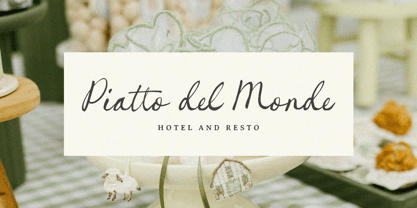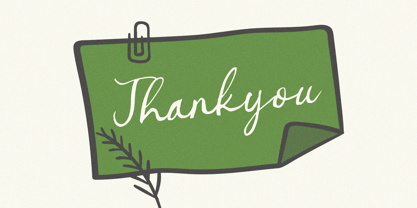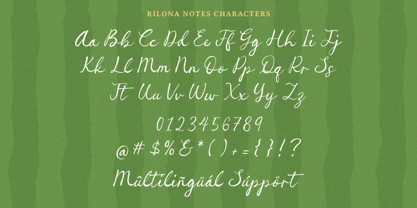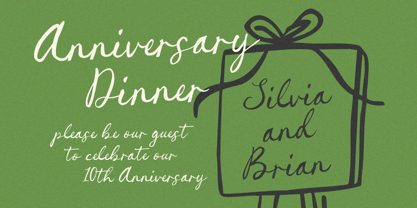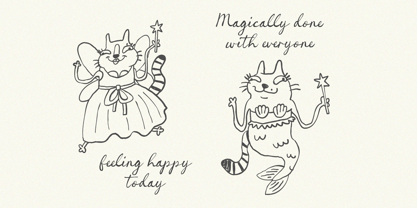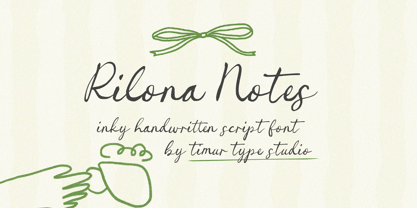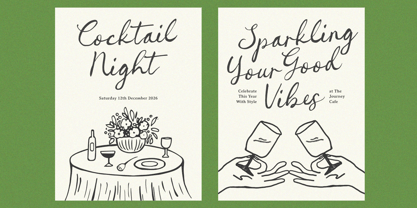
Rilona Notes
by Timurtype
The Rilona Notes Font Family was designed by Ibnu Nur Rahman and published by Timurtype. Rilona Notes contains 1 styles. More about this family
Introduced by Timurtype Studio! Rilona Notes is a Inky Handwritten Script Font Rilona Notes is a inky, handwritten script font with a natural, artistic flair. Its flowing, brush-style strokes give text a personal and expressive feel—perfect for creative designs, journaling, branding, and invitations that want a handcrafted touch. The irregularities and texture mimic real ink on paper, adding warmth and charm to any project. Rilona Notes Font also supports multilingualism Enhance your designs with our original fonts, feel free to comment or provide feedback, Enjoy the fonts 😊 Thank You
Designers: Ibnu Nur Rahman
Foundry: Timurtype